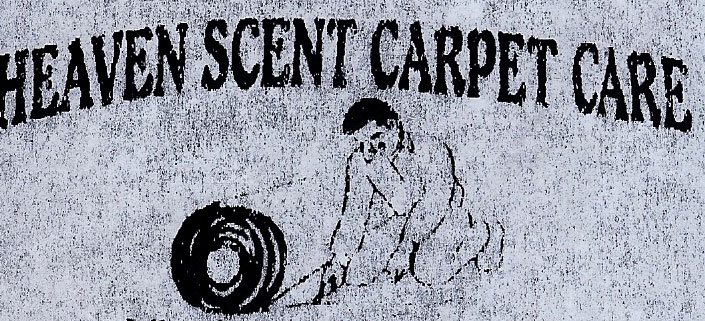
What font ?
I know this is an awful image to judge by, but it was a fax ... i inverted it to make it easier to read ... any help is greatly appreciated.
It is a pretty rough original. At first I thought it had a stencil-like break in the letters & I checked my font Freeform.
It was similar, but then I checked Cooper Black. I dont have a Cooper that is less bold, but maybe that would be closer.
It looks familiar, but I give up. At least this will bump the post up & someone else will know.
Cooper is close enough for the customer so it works for me, thank you so much for your time and effort.